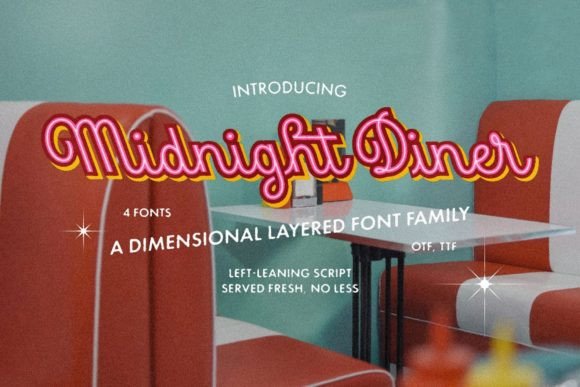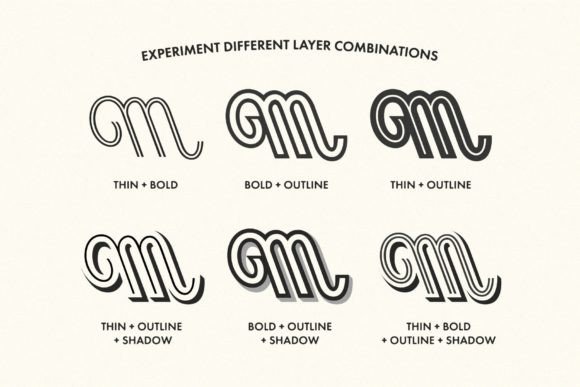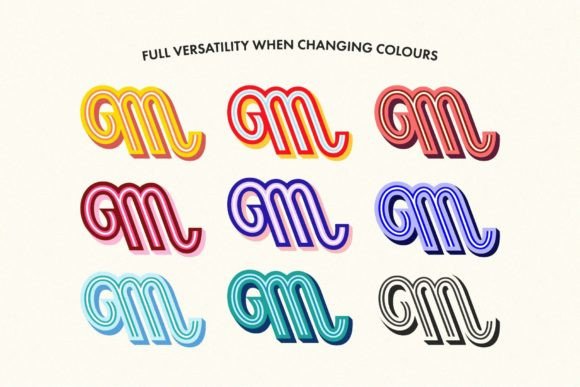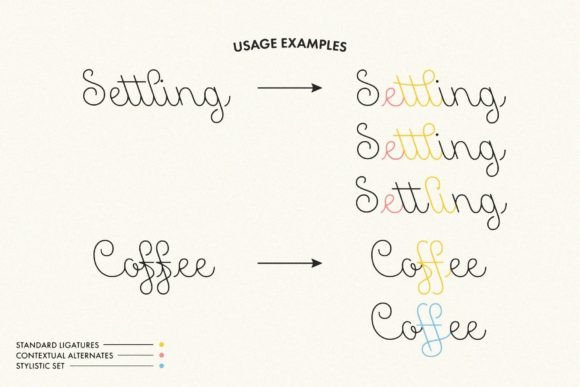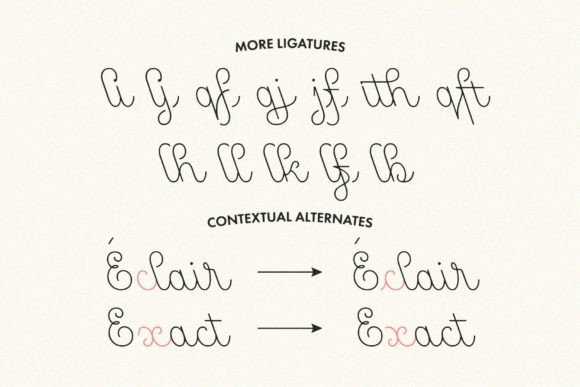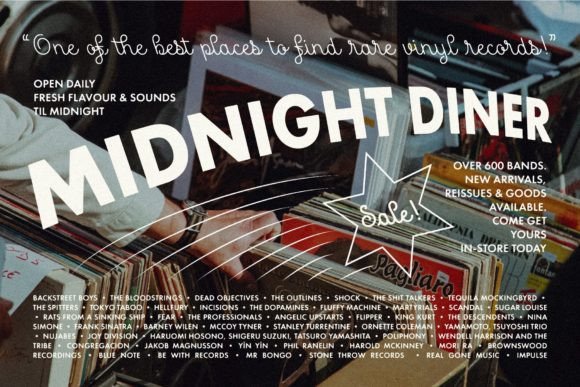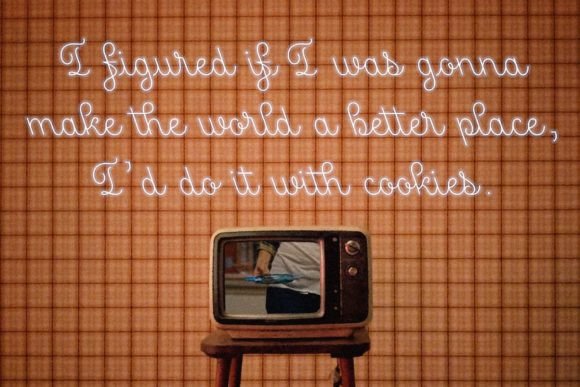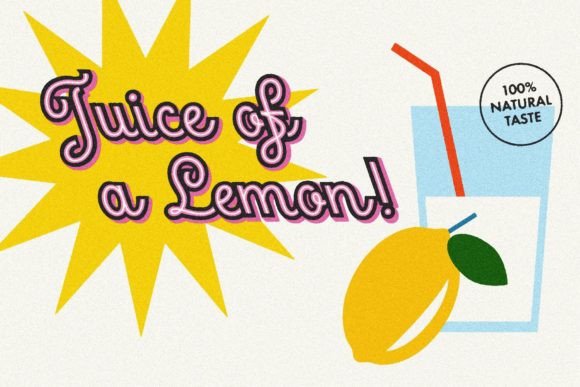
Midnight Diner Font
About Midnight Diner Font
Introducing Midnight Diner, a dynamic and multi-layered dimensional script font family designed to elevate your creative projects. This versatile font family includes thin, bold, outline, and shadow variations, providing a range of possibilities for customization. With a distinctive left-leaning slant, Midnight Diner exudes casual charm while maintaining a retro and elegant aesthetic.
One of the standout features of Midnight Diner is its ability to create captivating and visually engaging designs through various layer combinations and color experimentation. The font family invites you to explore and play with different styles, allowing you to effortlessly switch between casual, retro, and elegant vibes. This versatility makes Midnight Diner perfect for a wide range of applications, including display graphics, logos, signages, packaging, lifestyle imagery, invitations, and more.
Whether you’re aiming for a laid-back and casual look or a more refined and elegant feel, Midnight Diner effortlessly caters to your preferences. The delicately crafted details of this font family showcase a thoughtful design process, ensuring ease of use and versatility in every aspect. Each variant within the family is meticulously created to complement one another, providing a seamless and harmonious visual experience.
In display graphics, Midnight Diner shines as a captivating choice, adding a touch of personality and flair to your visuals. Logos designed with this font family are bound to stand out, thanks to its dynamic script style and the array of layering options available. Signages benefit from the font’s legibility and eye-catching design, making them easily noticeable and memorable.
Packaging takes on a new level of creativity with Midnight Diner, allowing you to experiment with layer combinations and colors that align with your brand or product theme. Lifestyle imagery, invitations, and more receive a boost of character and style when adorned with the unique charm of Midnight Diner.
The font family’s well-thought-out design ensures that every little detail contributes to its overall versatility and user-friendliness. Midnight Diner is crafted with the user in mind, providing a tool that effortlessly adapts to diverse design needs.
In conclusion, Midnight Diner is not just a font family; it’s a creative playground that empowers designers to explore a spectrum of styles. Whether you’re aiming for a casual, retro, or elegant look, Midnight Diner offers a delightful experience, making it an ideal choice for those who seek both ease and versatility in their design projects.